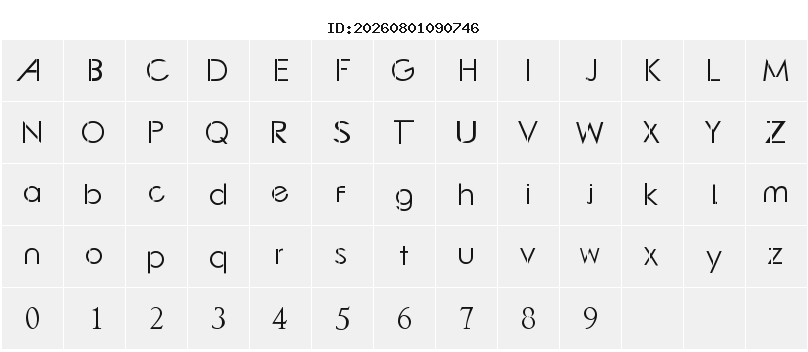
About LJ Studios GF.ttf
LJ Studios GF.ttf is a modern, elegant sans-serif font designed for ultimate readability and visual harmony. Perfect for branding, headlines, web design, and print materials.